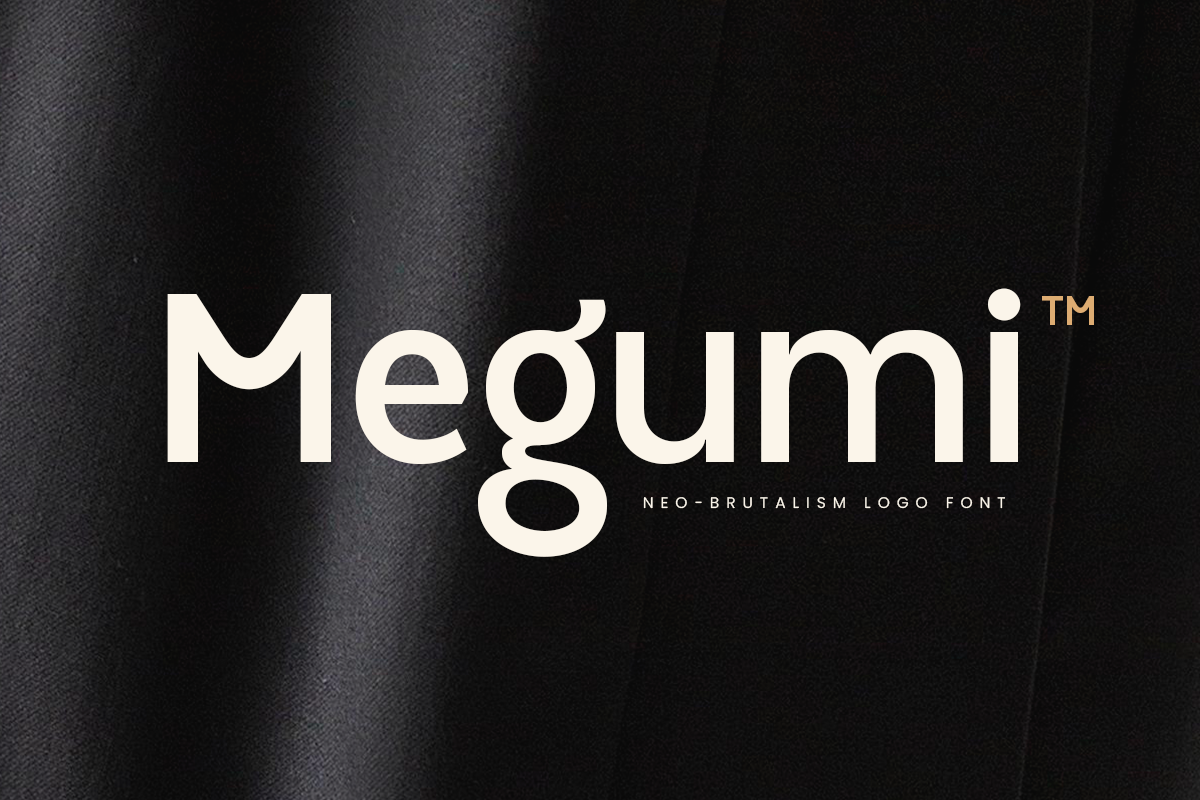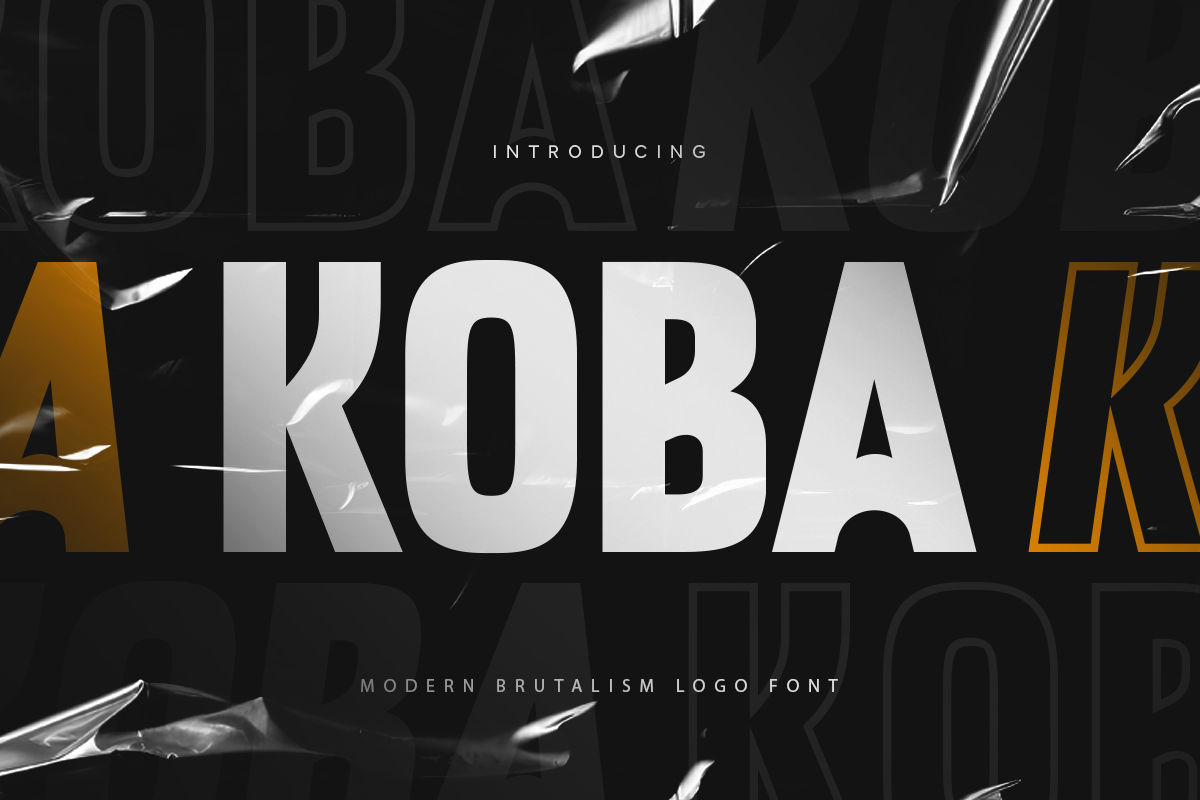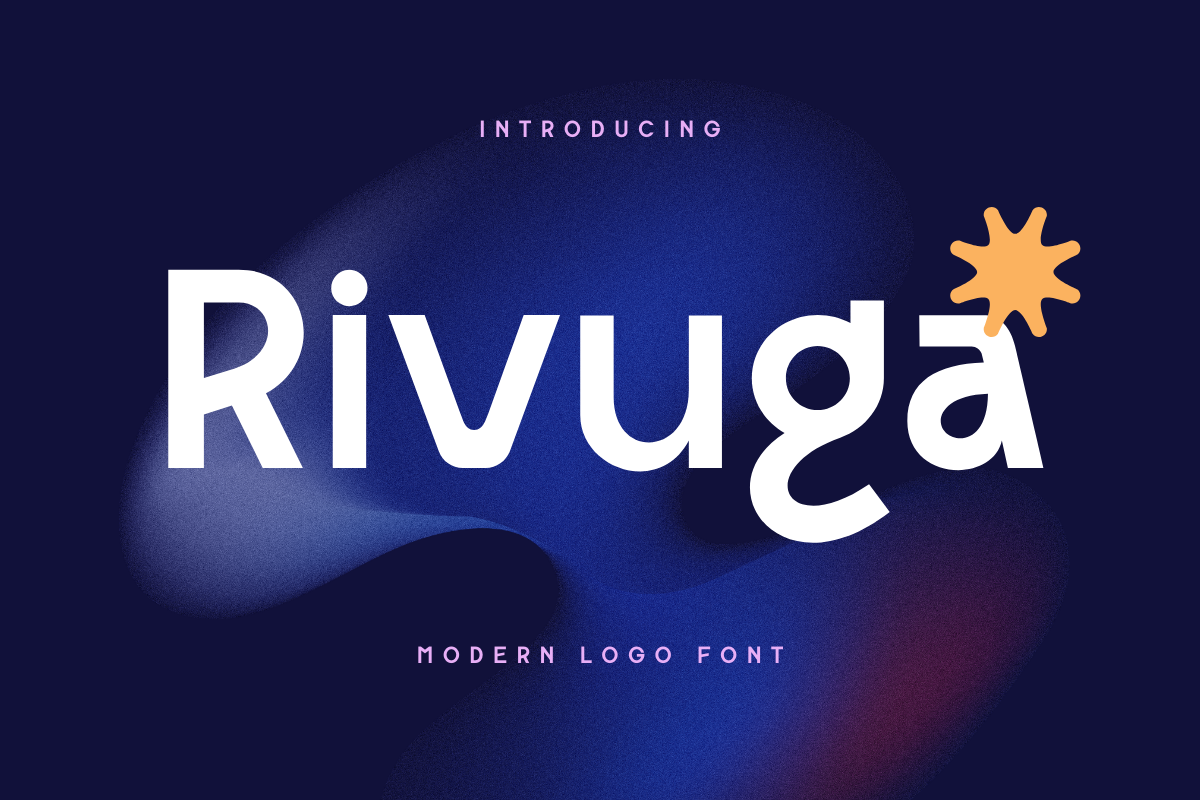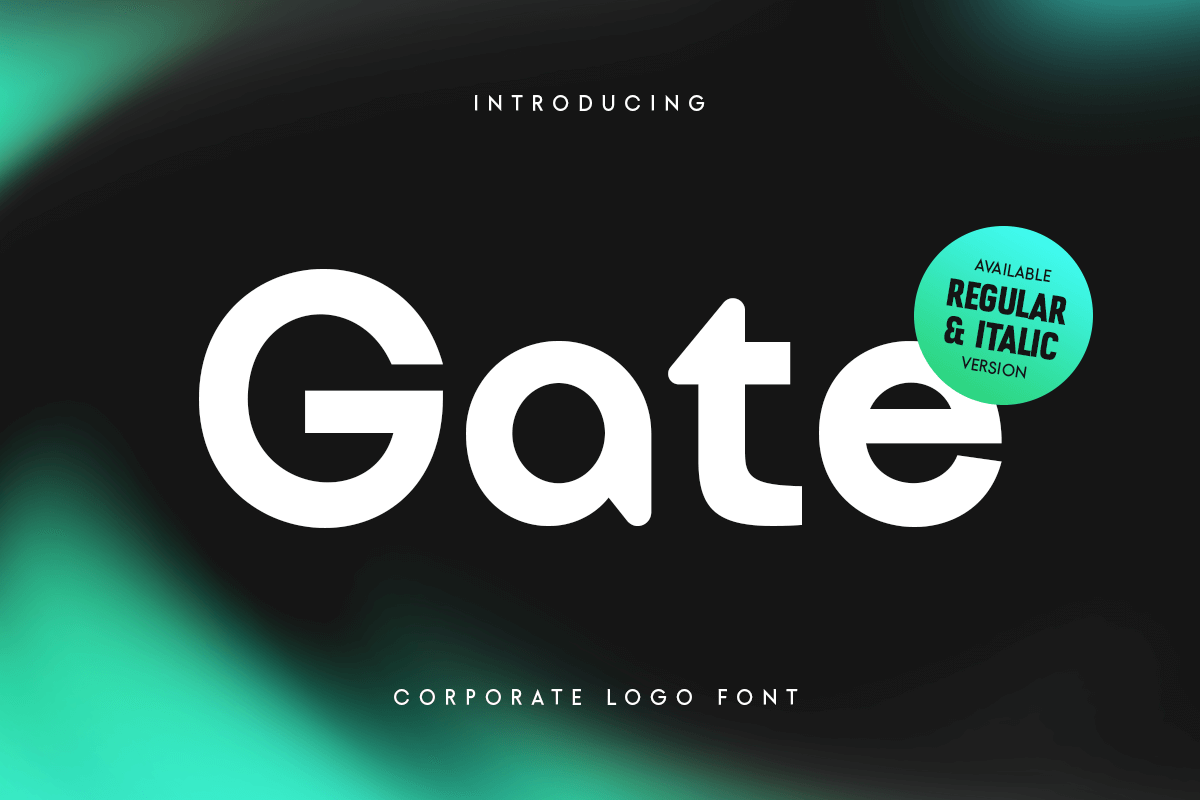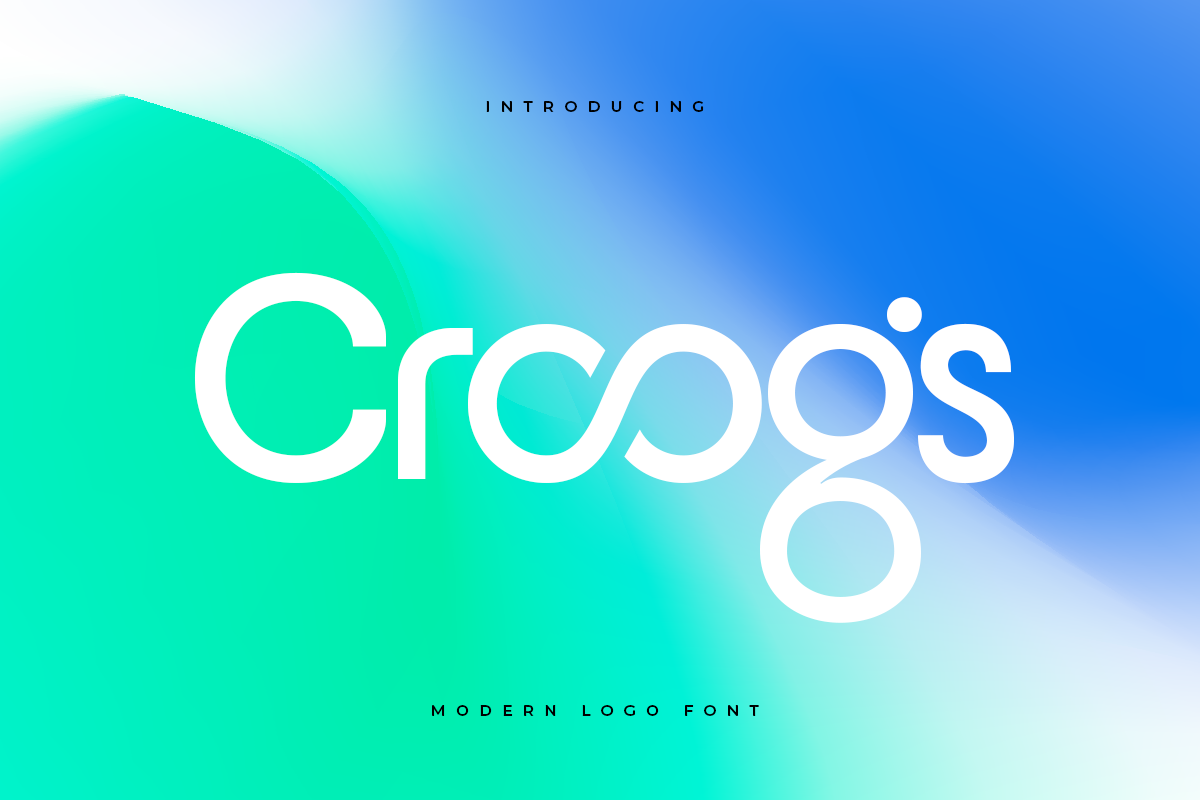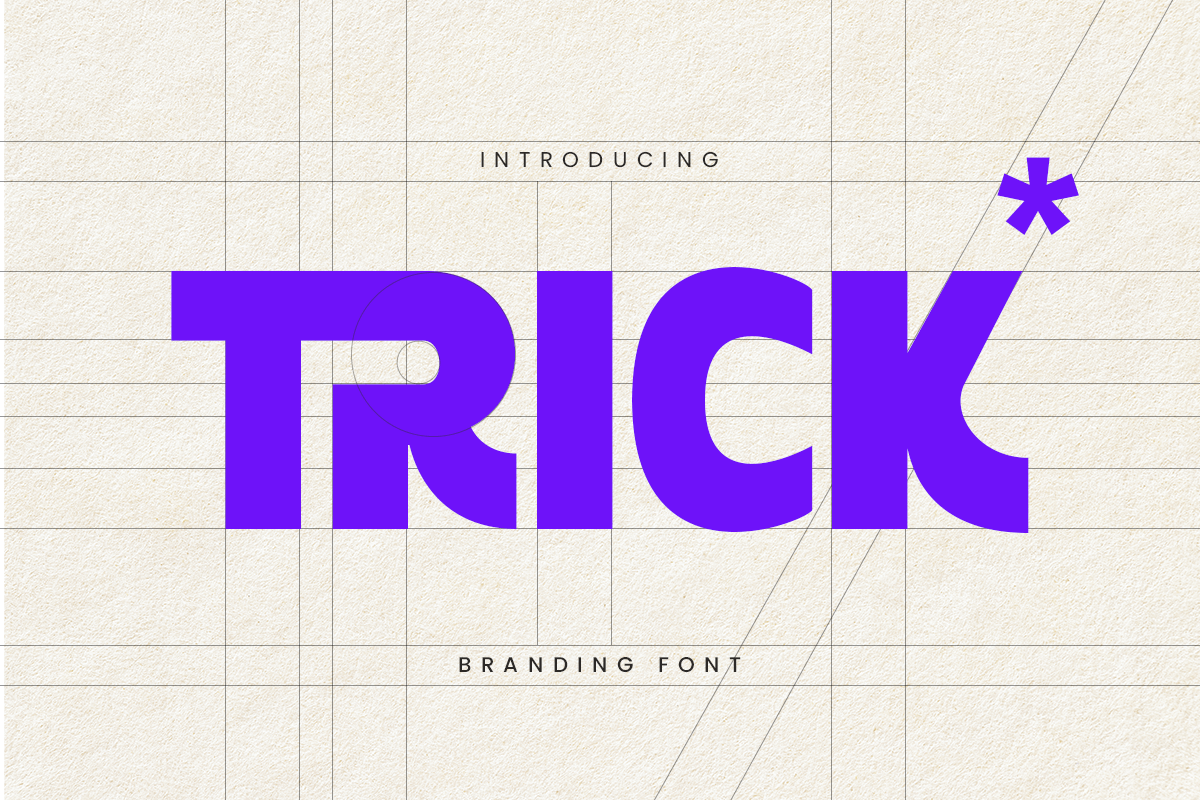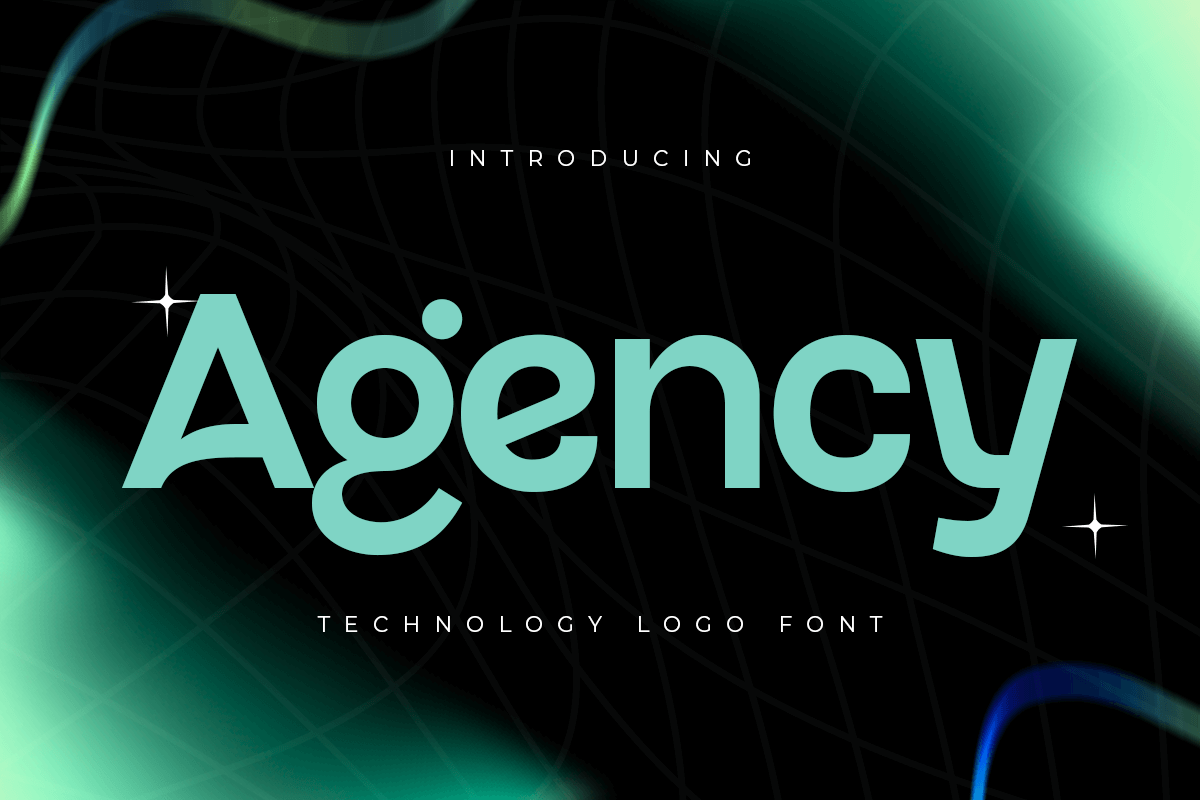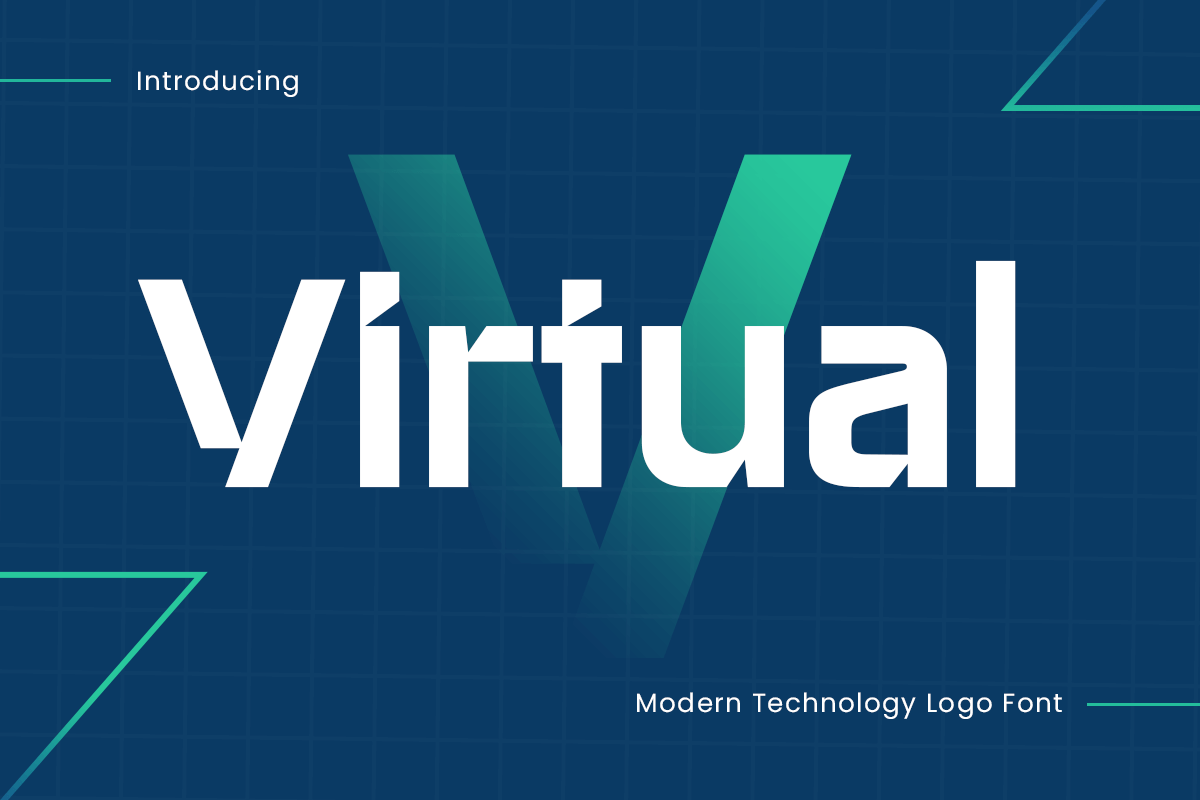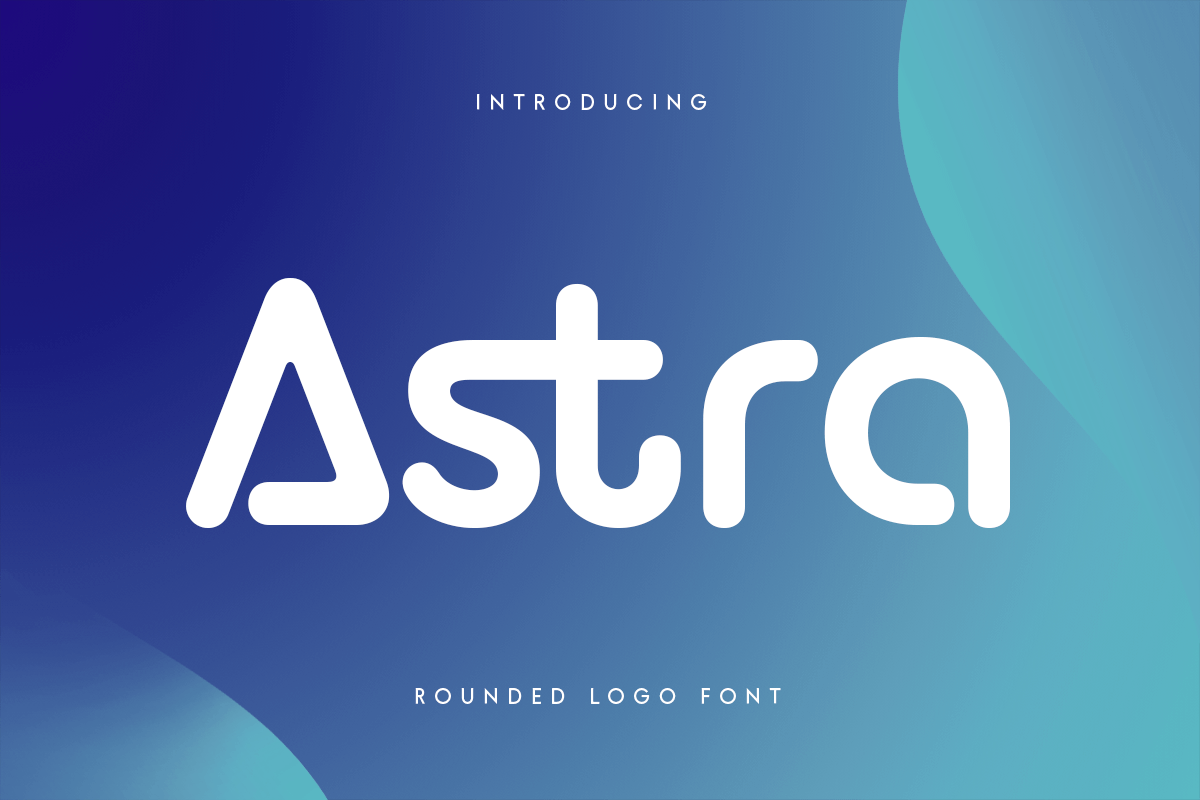
Top Modern Logo Fonts for Designers
We provide a curated list of top modern logo fonts for designers. These fonts have been handpicked for their unique attributes and versatility in various design contexts.
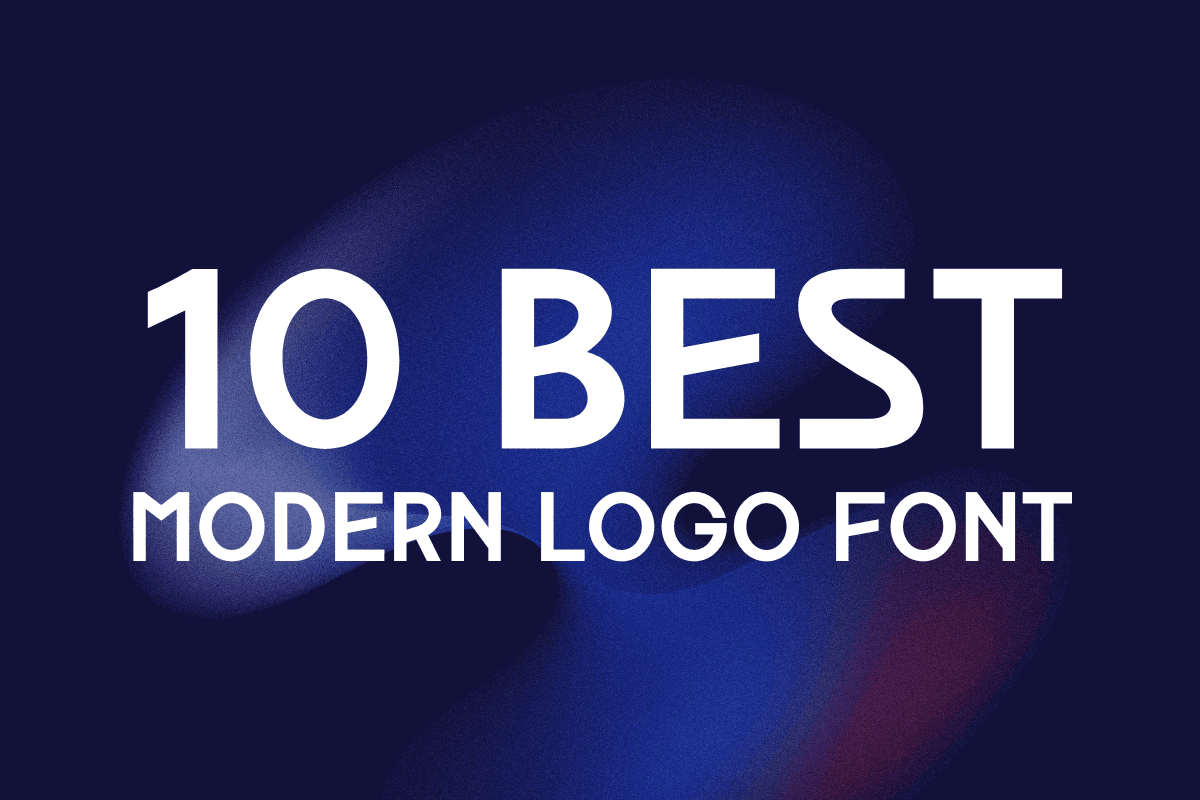
In the world of design, fonts play a crucial role. They are the silent ambassadors of your brand, conveying your message even before the words are read.
For logo designers, the choice of font is particularly significant. It can make or break the perception of a brand.
Modern logo fonts have emerged as a popular choice. They offer a fresh, contemporary feel that resonates with today's audience.
But what makes a font modern? And how do you choose the best modern logo fonts for your design projects?
This guide aims to answer these questions. It will delve into the characteristics of modern logo fonts, discuss their impact on brand perception, and explore the latest trends in contemporary logo font design.
We will also provide a curated list of top modern logo fonts for designers. These fonts have been handpicked for their unique attributes and versatility in various design contexts.
Whether you're a seasoned designer or a business owner looking to revamp your brand, this guide will offer valuable insights. Let's embark on this journey to discover the power of modern logo fonts in shaping brand identities.
Characteristics of Modern Logo Fonts
Modern logo fonts have specific traits that make them stand out in contemporary design. They are often clean, minimalistic, and focus on clarity. This simplicity aids in creating strong brand identities.
They often integrate unique design elements that add character and interest. These features could range from subtle tweaks to bold, striking lines. This distinctiveness helps logos remain memorable and impactful.
Key characteristics of modern logo fonts include:
Simplicity and Readability: Emphasizing clear lines.
Versatility: Adapting well to various sizes and mediums.
Distinctive Features: Unique elements for brand differentiation.
Emotional Resonance: Conveying brand values through design elements.
These characteristics help differentiate brands in a crowded marketplace. Their adaptability and clarity ensure modern logo fonts maintain effectiveness across all branding touchpoints.
Top 10 Best Modern Logo Fonts for Designers
Agency Modern Logo Font (TTF, OTF, WOFF)
Agency is the ultimate font for combining technology and branding into a sleek, modern logo. Crafted to meet the demands of contemporary business and tech industries, it offers a clean and professional look that stands out in any application. Ideal for logos, websites, and branding materials, Agency provides a distinctive, futuristic edge.
Inspired by cutting-edge technology and high-impact branding, Agency delivers a unique style that makes your design memorable. Its versatile features make it suitable for various professional uses, ensuring that your brand conveys both innovation and reliability.
Whether you're working on a tech startup or a corporate rebranding, Agency supports your vision with its comprehensive character set and OpenType features. It’s designed to enhance your projects with a strong, cohesive identity.
KOBA Modern Logo Font (TTF, OTF, FF)
Koba is a Modern Brutalism Logo Font is a modern font with a minimalist, unique and have value for branding, font that you can combine to get any variations and unique shapes easily just in seconds with choose variation of them. It is a sans serif font with minimalist style that perfect for branding projects, logo, poster designs, social media posts, advertisements, product packaging, product designs, label, photography, watermark, invitation, stationery, and any projects, it makes with a high level of legibility.
Trick Modern Logo Font (TTF, OTF, WOFF)
TRICK is a unique logo font designed to make your brand stand out. Inspired by modern design trends, TRICK combines stylish elements with a creative flair, ensuring your branding is memorable and distinct. Its versatile nature makes it perfect for a wide range of applications, from logos and business cards to product packaging and digital media. TRICK features clean lines and bold shapes, adding a professional and innovative touch to your projects. Whether you’re rebranding a company or launching a new product, TRICK provides the unique identity your brand needs to leave a lasting impression.
Attack Modern Logo Font (TTF, OTF, WOFF)
Attack is Corporate Logo Sans Serif Font is a well-balanced modern font with a minimalist, unique, and iconic sans serif, font that you can combine to get any variations and unique shapes easily just in seconds with choose ligatures of them. It is a sans serif font with minimalist style that perfect for branding projects, logo, poster designs, social media posts, advertisements, product packaging, product designs, label, photography, watermark, invitation, stationery, and any projects, it makes with a high level of legibility.
Rivuga Modern Logo Font (TTF, OTF, WOFF)
Rivuga is a modern font crafted to meet the needs of today’s technology-driven world. Its clean lines and sleek design make it an ideal choice for logos, tech branding, and any project that demands a forward-thinking aesthetic. Inspired by the fast-paced nature of technological advancements, Rivuga combines elegance with functionality. It ensures that your brand stands out with a contemporary edge while maintaining readability and professionalism. Whether you’re designing a logo, website, or tech-related promotional material, Rivuga provides a sophisticated and modern look that aligns perfectly with the digital age.